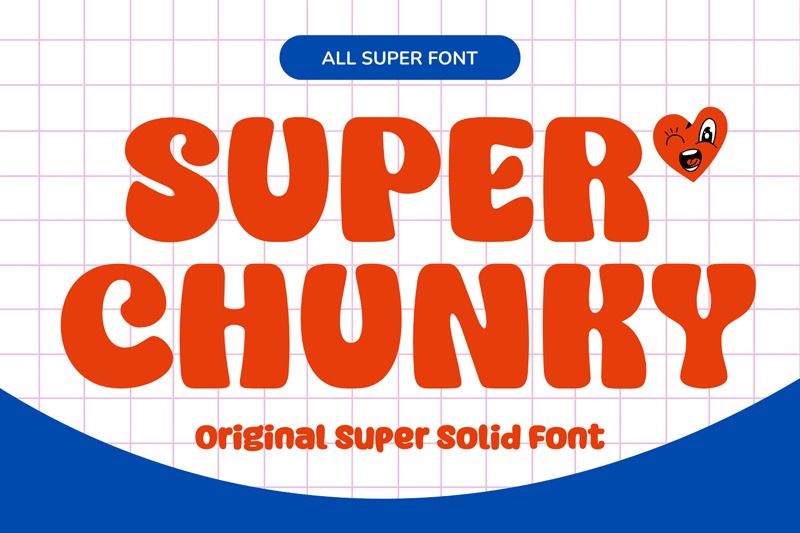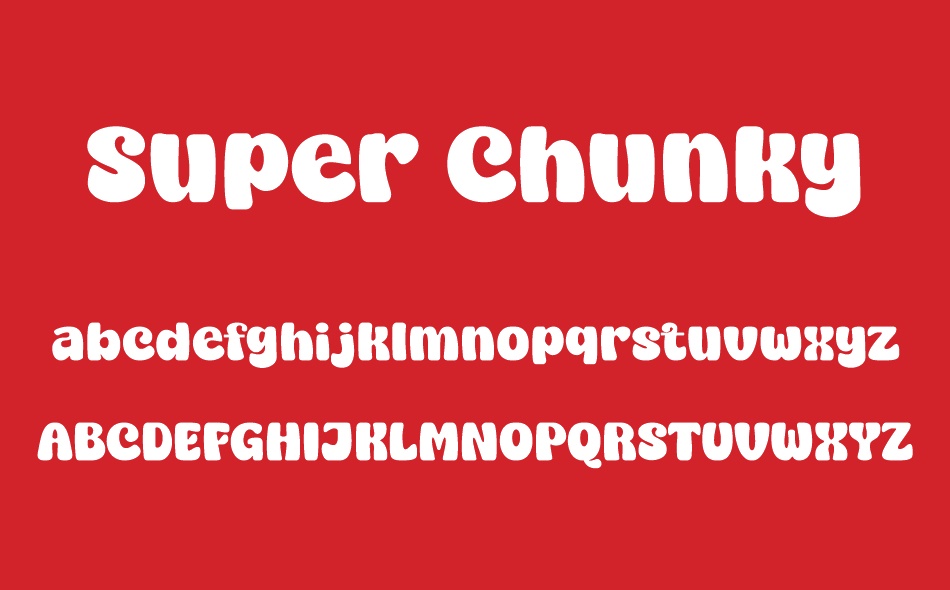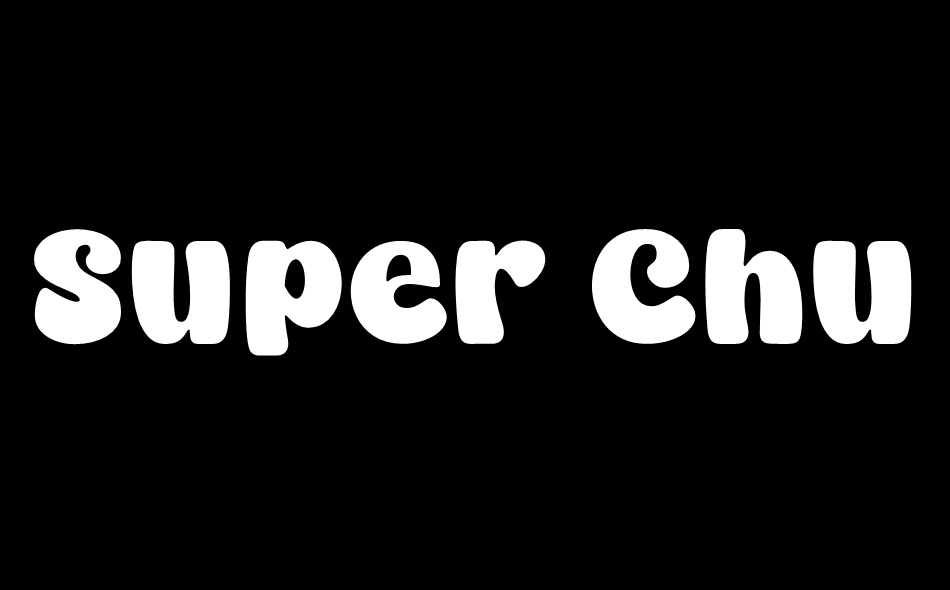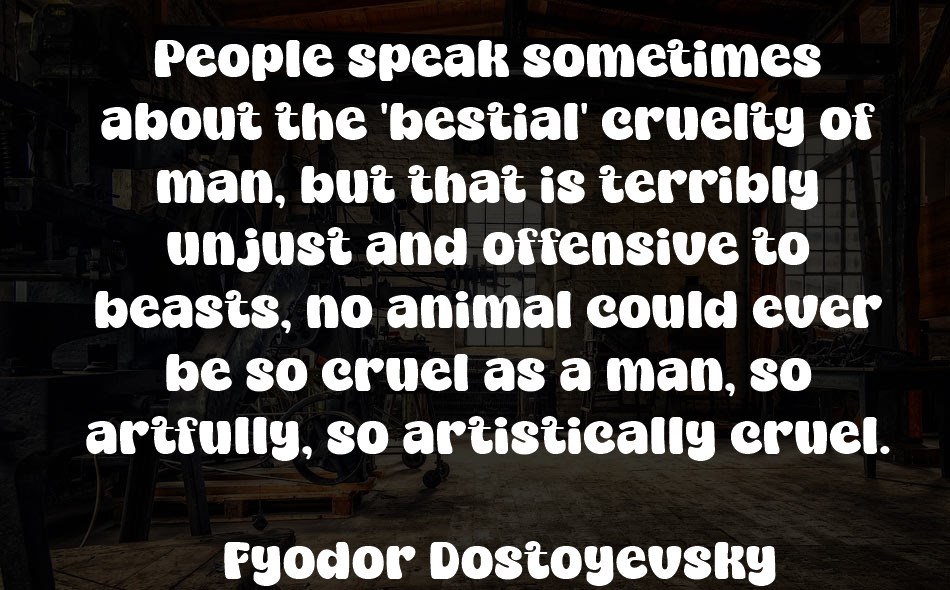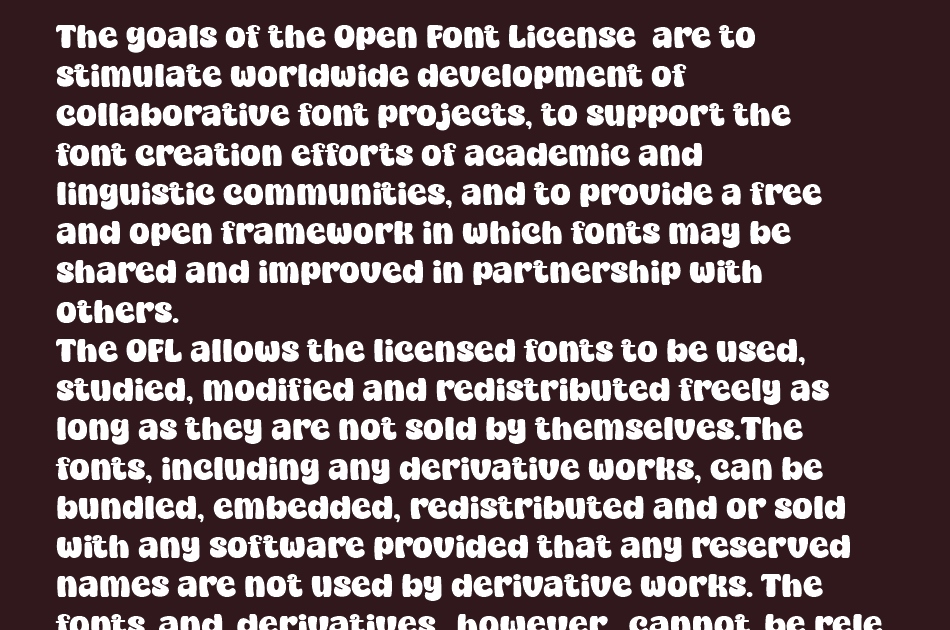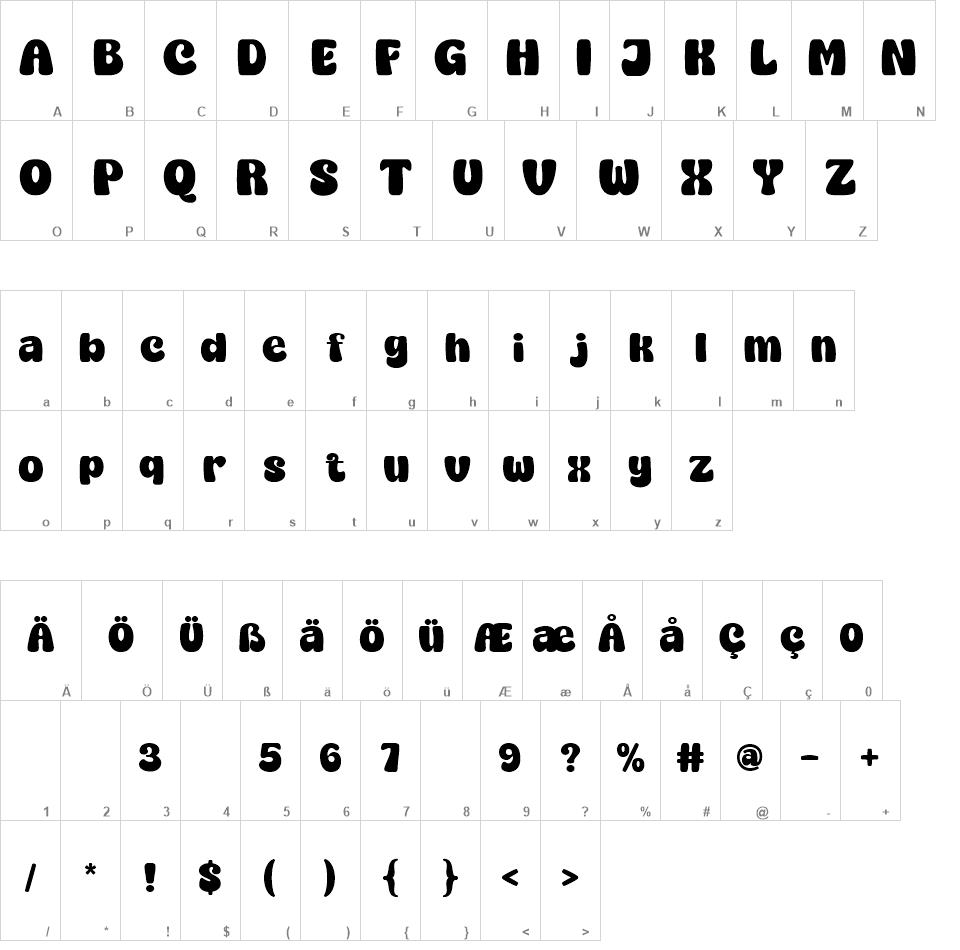
Super Chunky font
Introducing Super Chunky: The Font That Shouts Without Saying a Word
Super Chunky isnt your average font. Its a bold statement piece designed to grab attention and leave a lasting impression. Forget subtlety, Super Chunky embraces chunky letterforms with unyielding thickness and unwavering confidence.